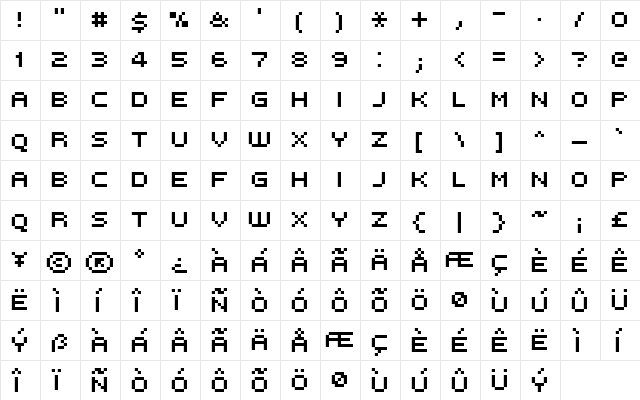
FFF Intelligent Thin Regular
Design Context for FFF Intelligent Thin Typeface
FFF Intelligent Thin takes a measured approach to typography — its balanced proportions and neutral character make it a reliable workhorse for both digital and print work. Its slender proportions lend an understated elegance to any composition.